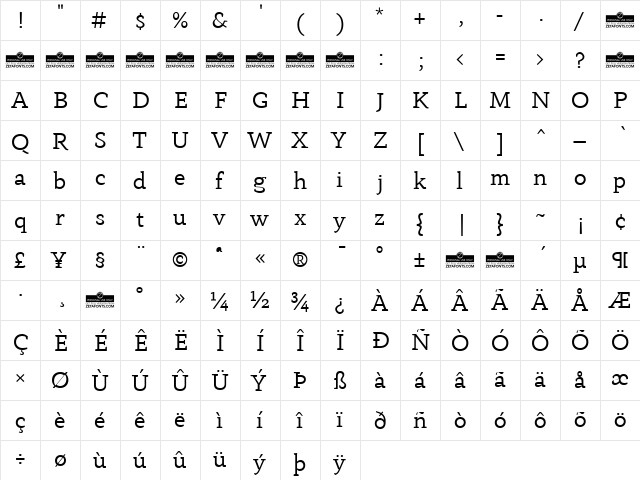
Anaphora Trial Regular
| Foundry | Studio Kmzero |
| Designer | Francesco Canovaro |
Design Context for Anaphora Trial Typeface
Anaphora Trial offers clean, dependable letterforms without strong stylistic allegiance, making it a practical choice for designers who need flexibility.